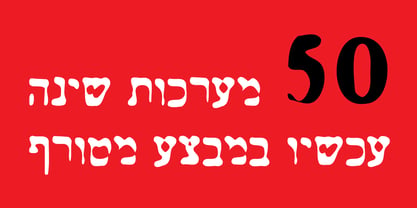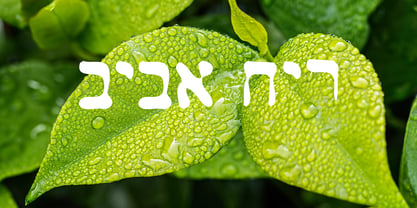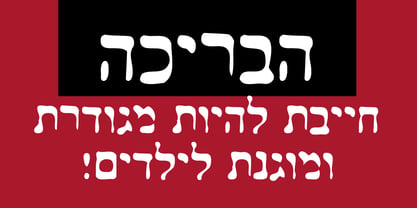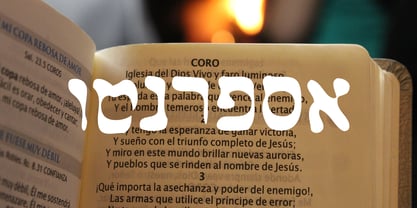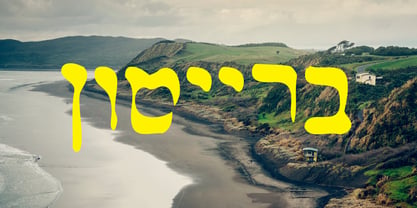
Dimdumim
by Masterfont
The Dimdumim Font Family was designed by Zvika Rosenberg and published by Masterfont. Dimdumim contains 1 styles. More about this family
This calligraphic scribble follows the traditional Hebrew type by intensive and free hand drawn lines.
Designers: Zvika Rosenberg
Foundry: Masterfont